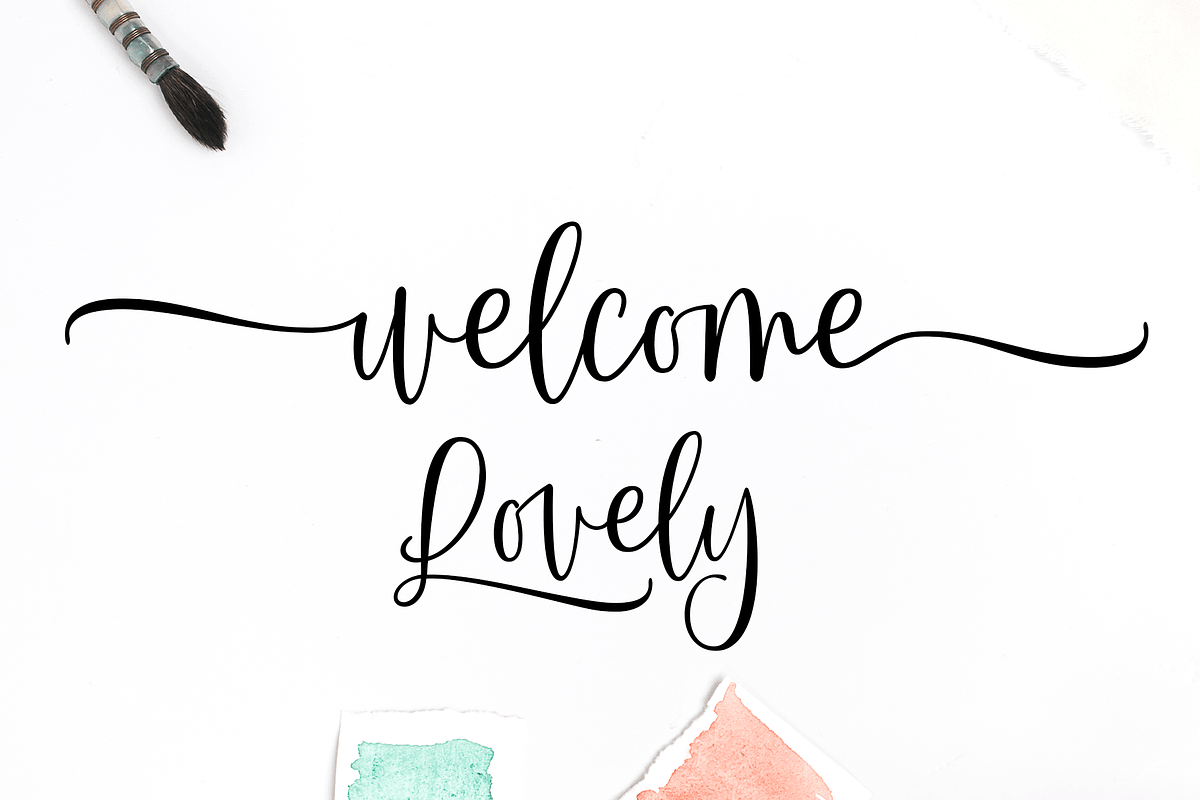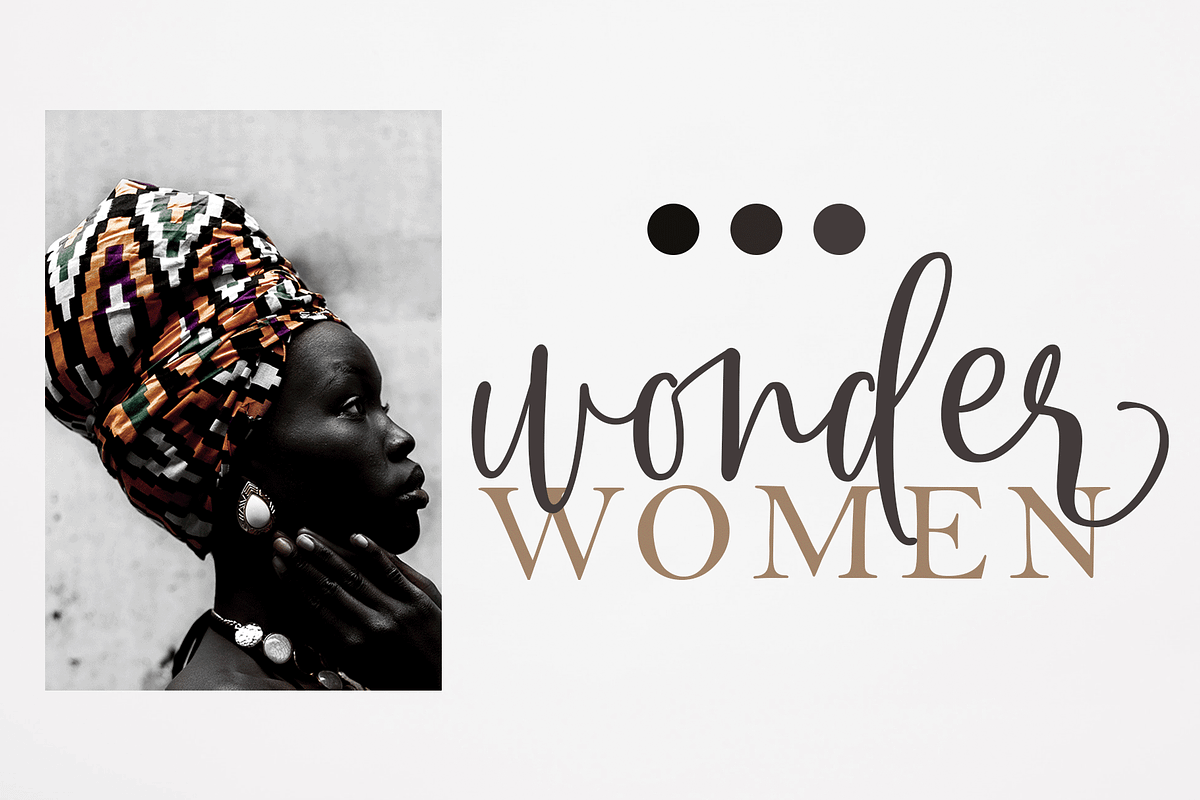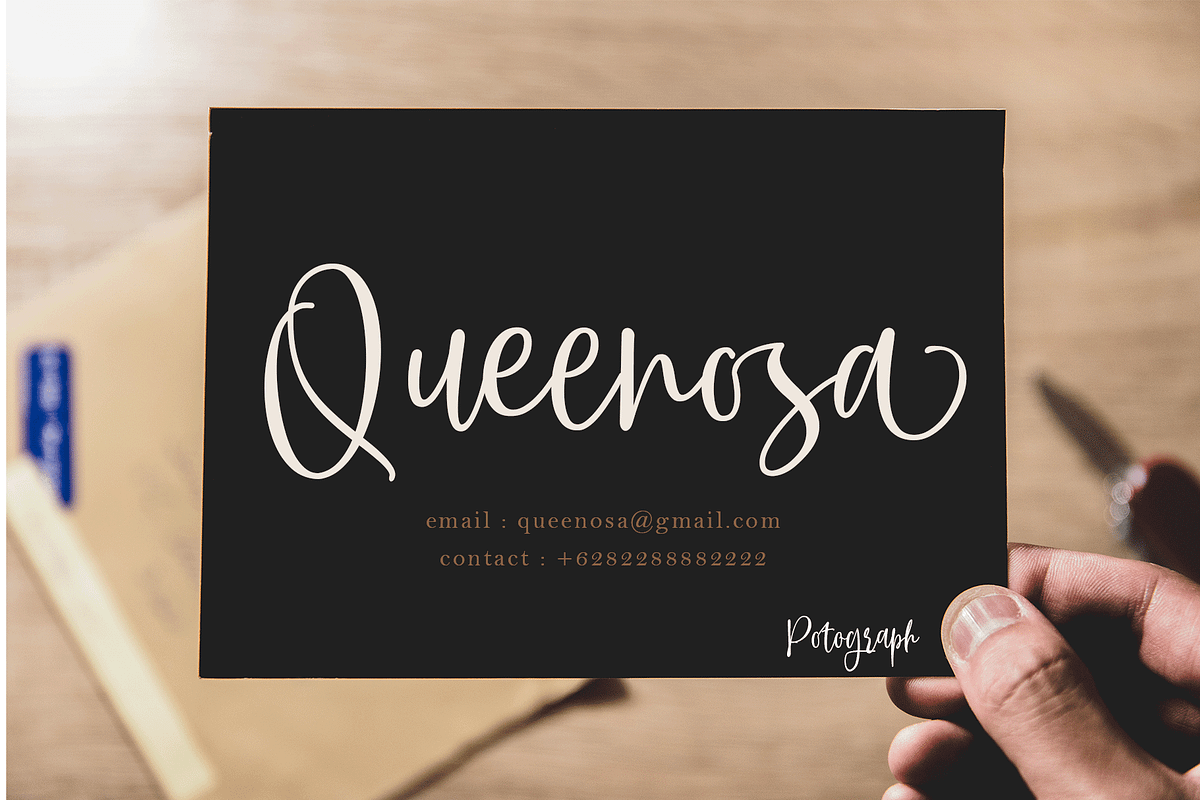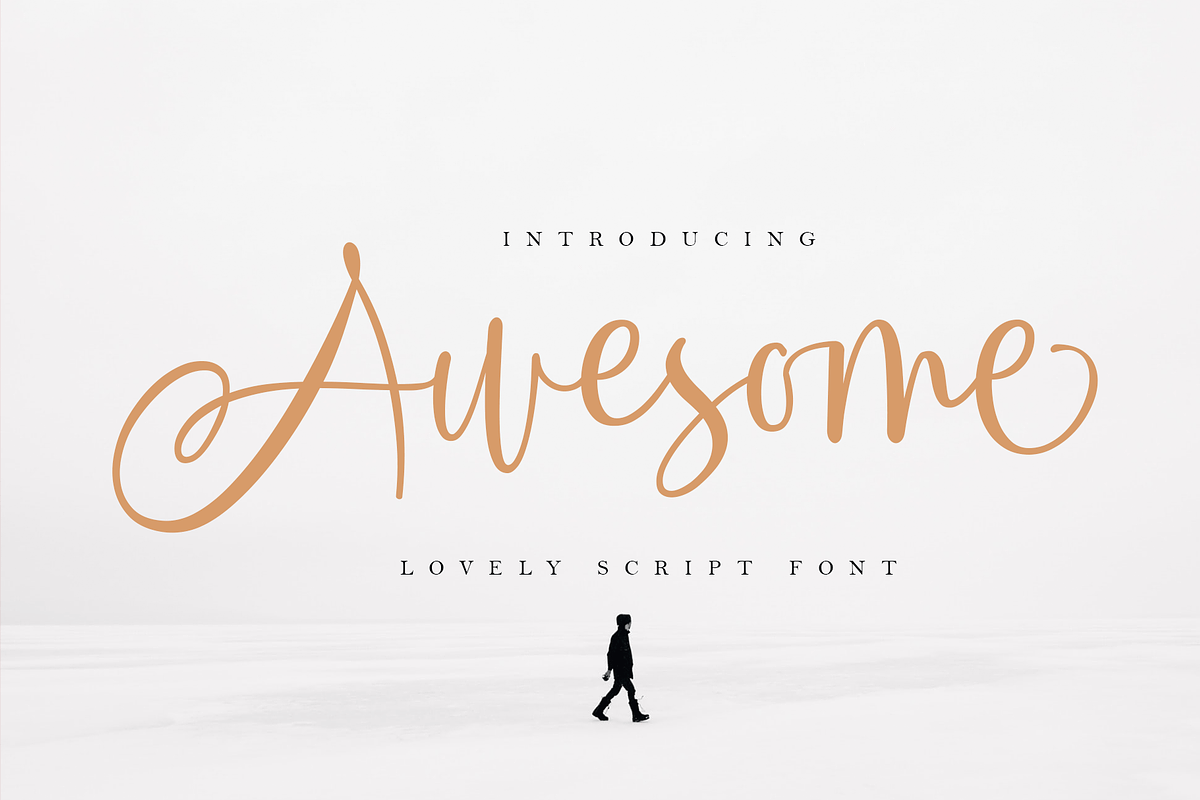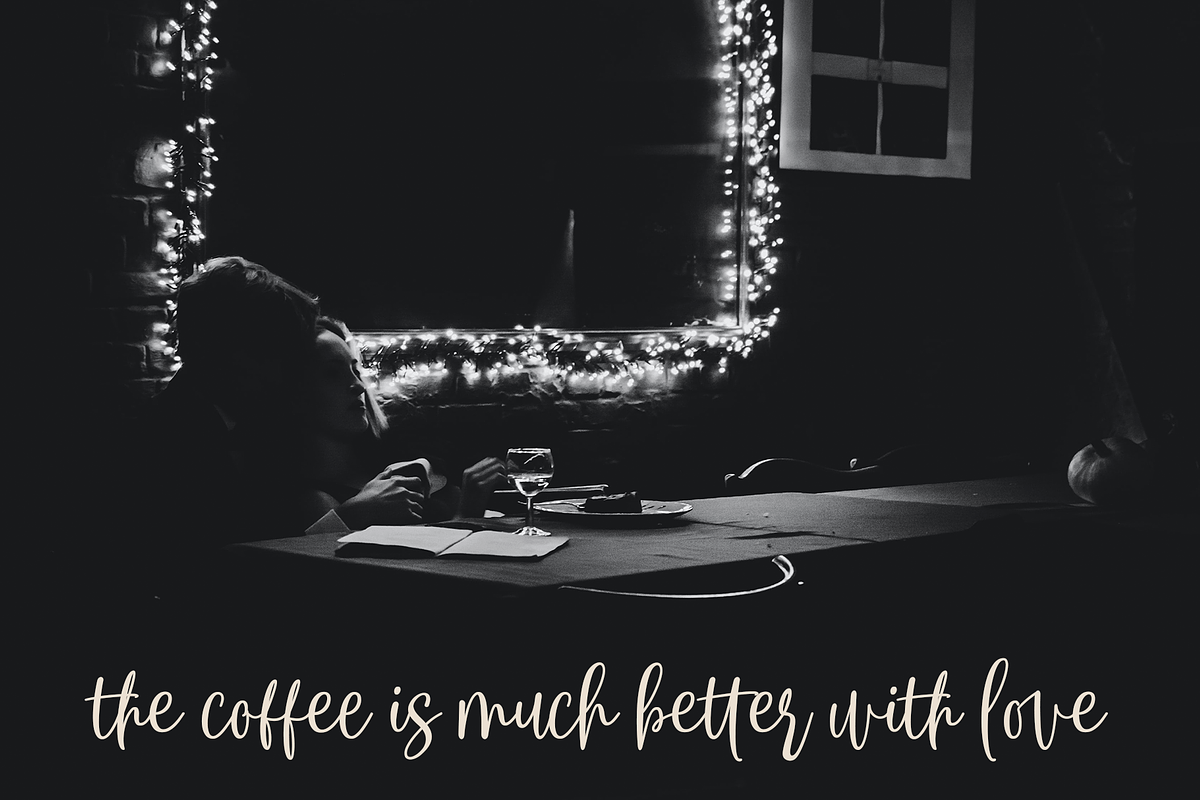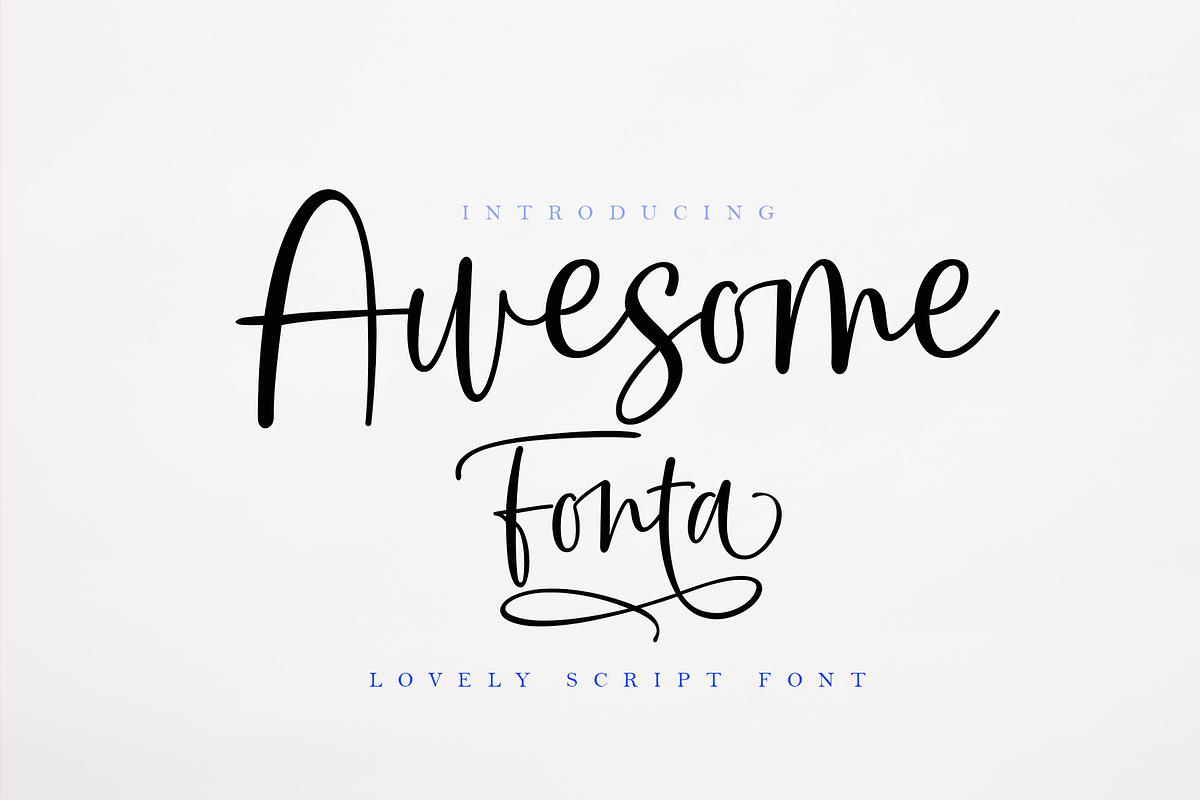
Awesome Font Duo
Awesome Font Duo is handwritten font with a modern Calligraphy feel.
Awesome Font Duo is perfect for modern projects, headings, blogs, logos, brandings, invitations and more!